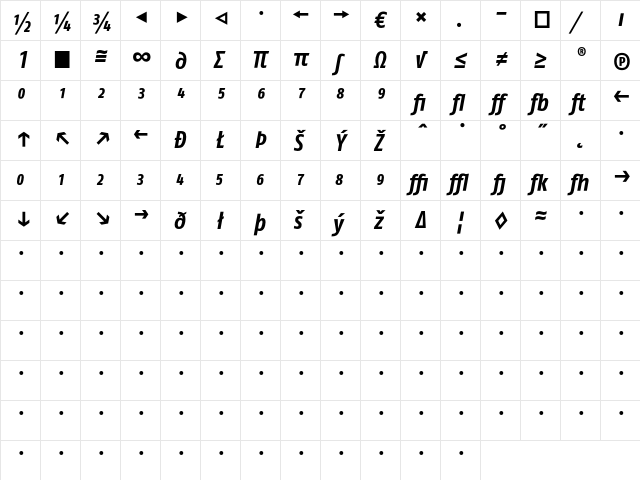
FagoCo BoldItalicExp
Design Context for FagoCo Typeface
FagoCo is a composed and adaptable typeface that performs quietly and consistently across a wide range of design contexts. The dynamic lean of this cut emphasises speed and emphasis in any layout. Its bold stroke weight gives it real presence on the page.
Pro Tip: Use FagoCo for emphasis, pull quotes, and subheadings where its slanted energy can add rhythm to the layout.